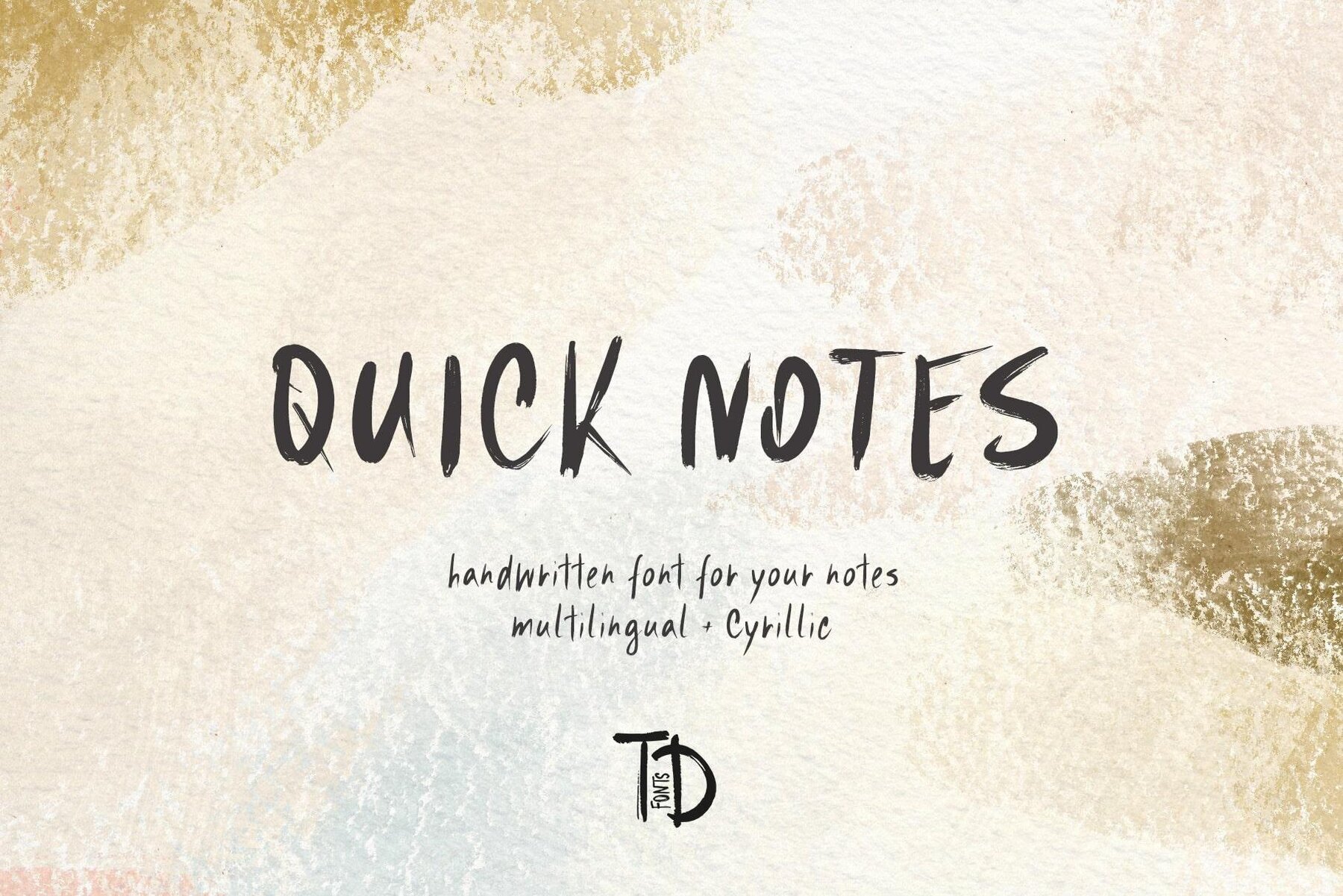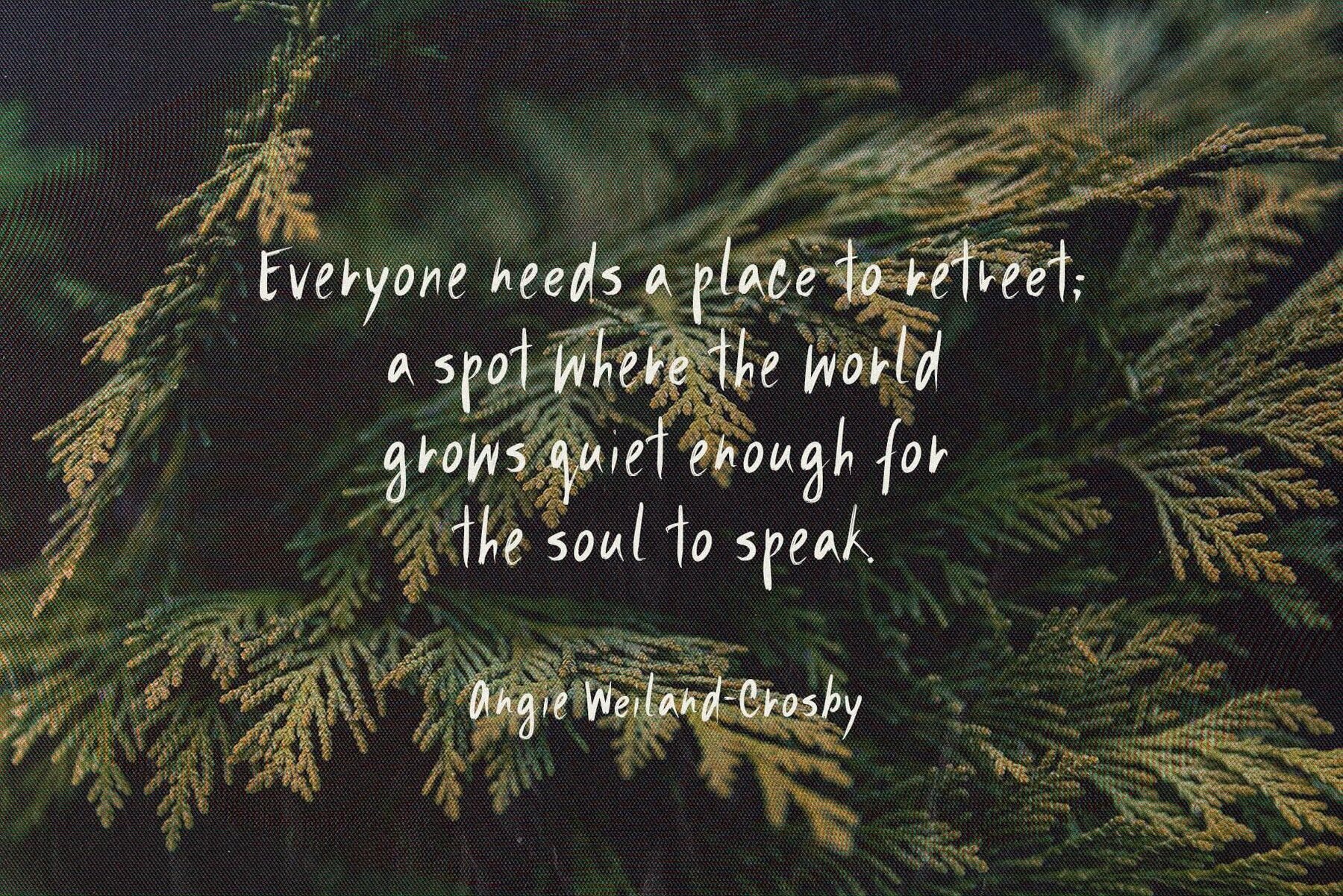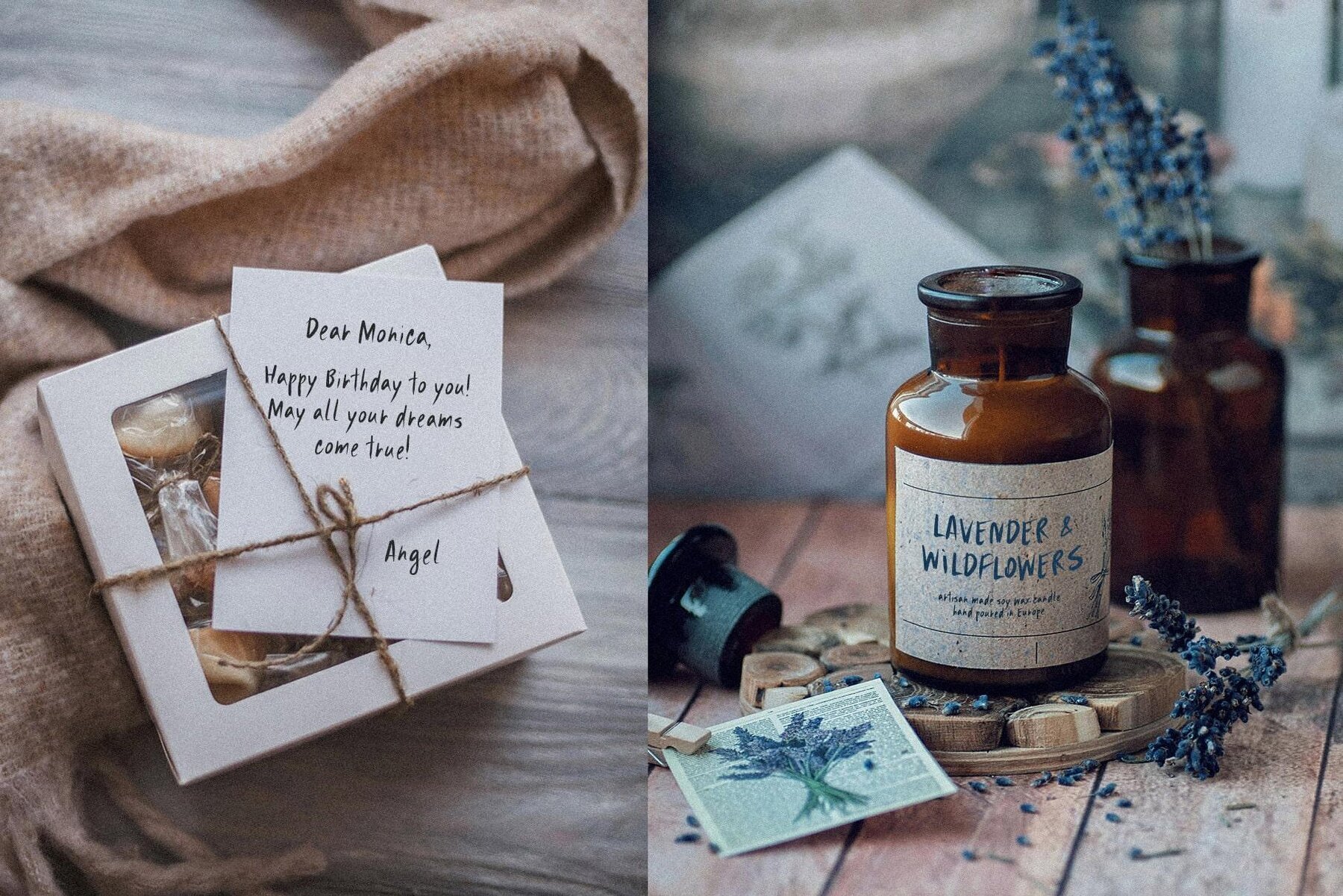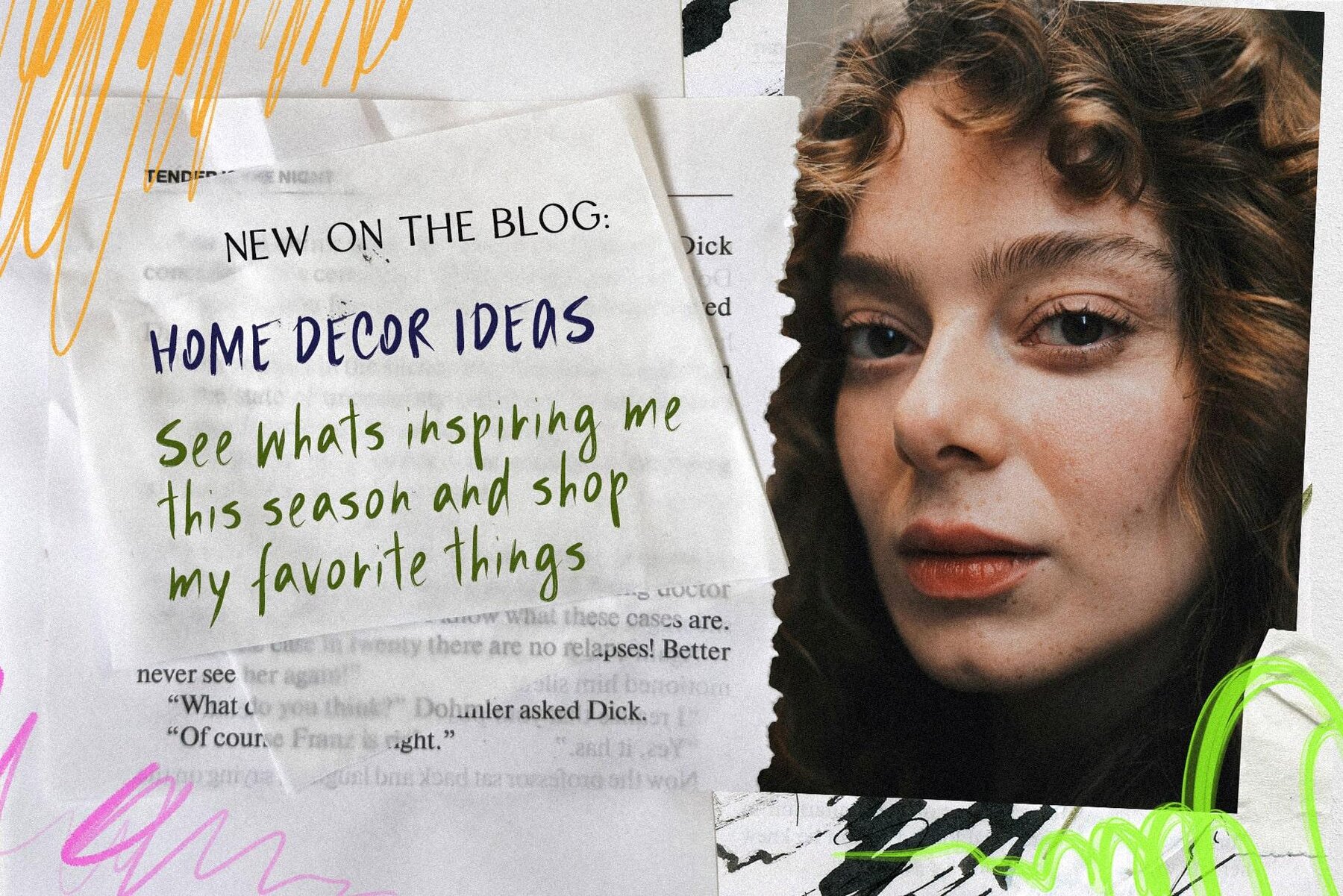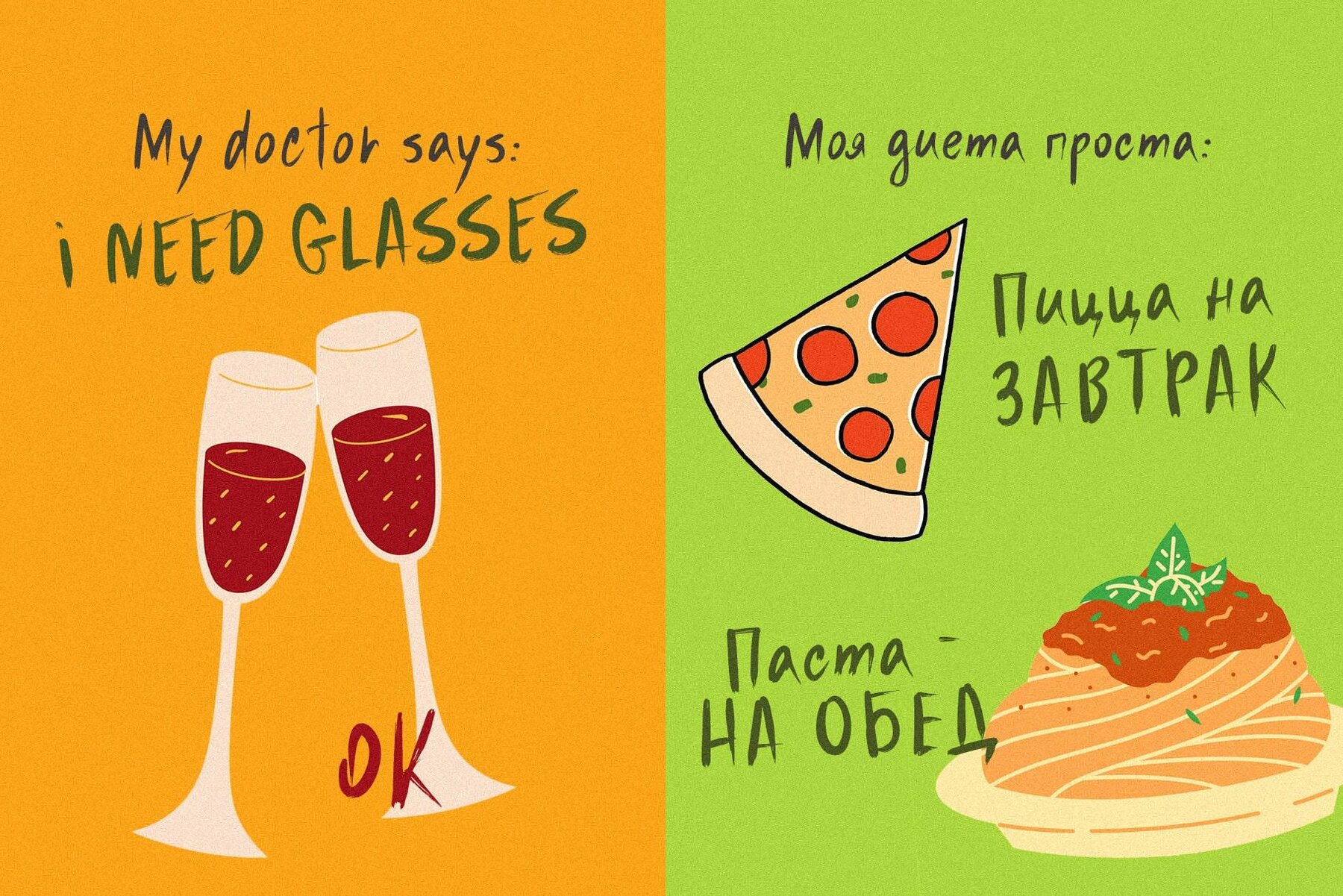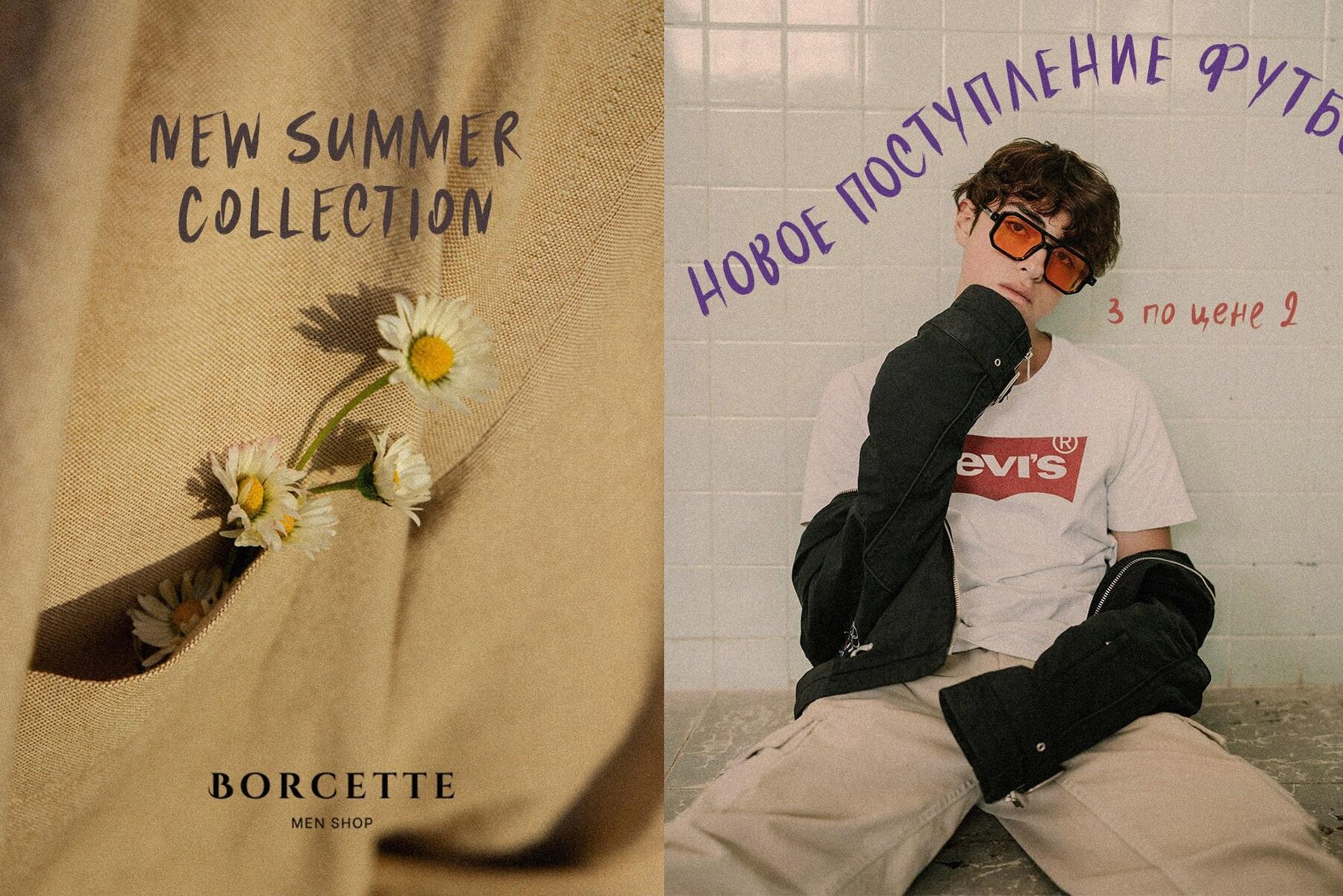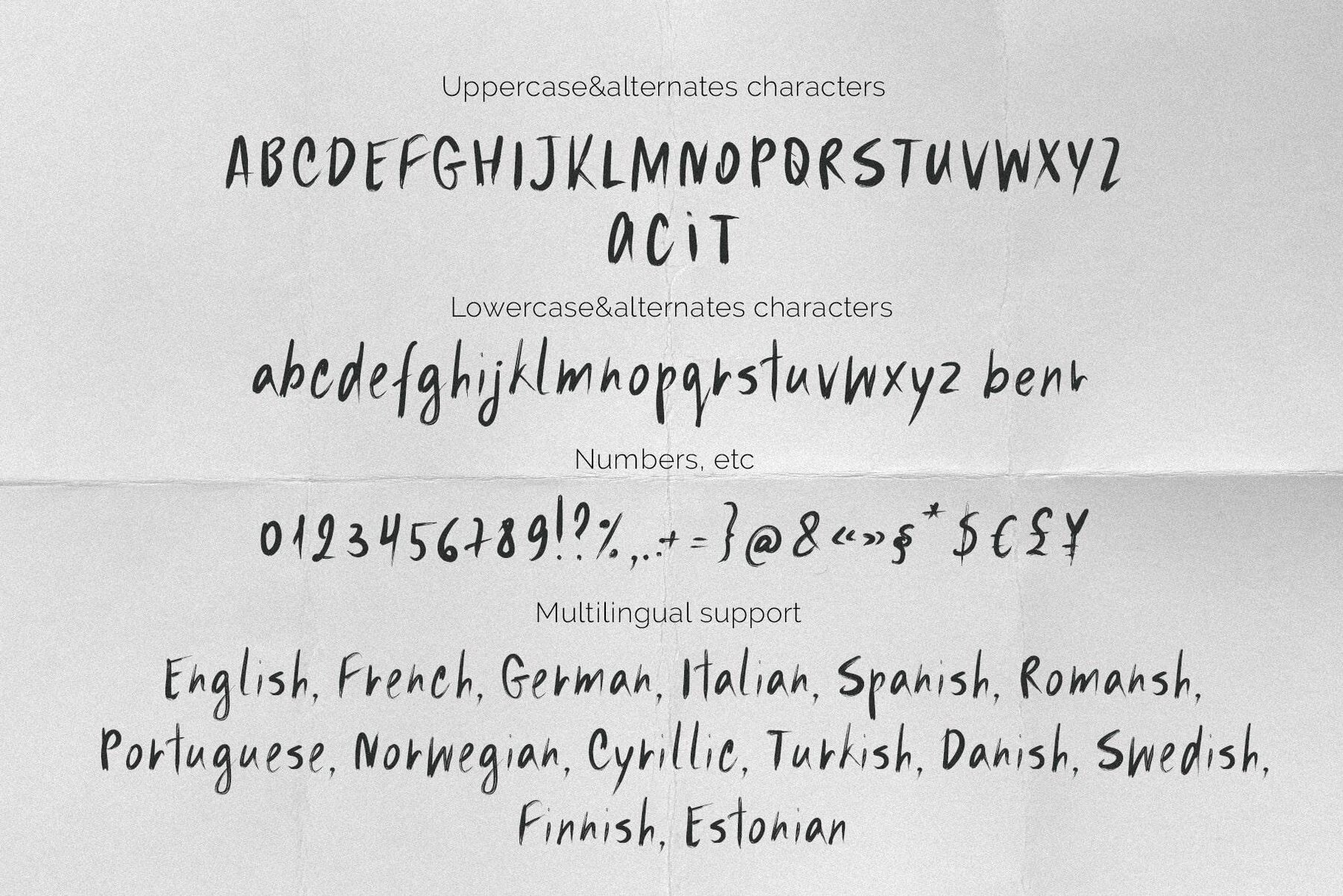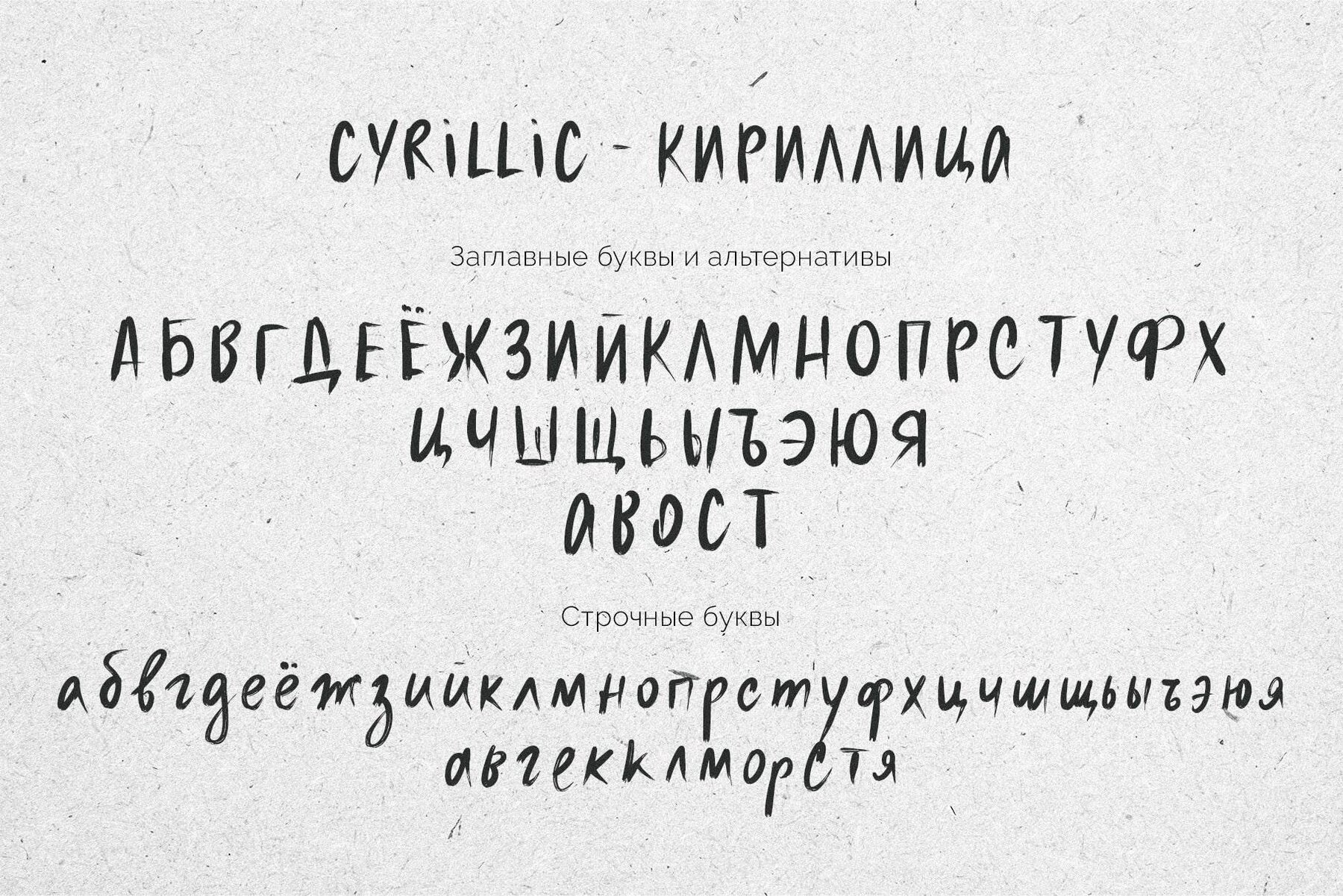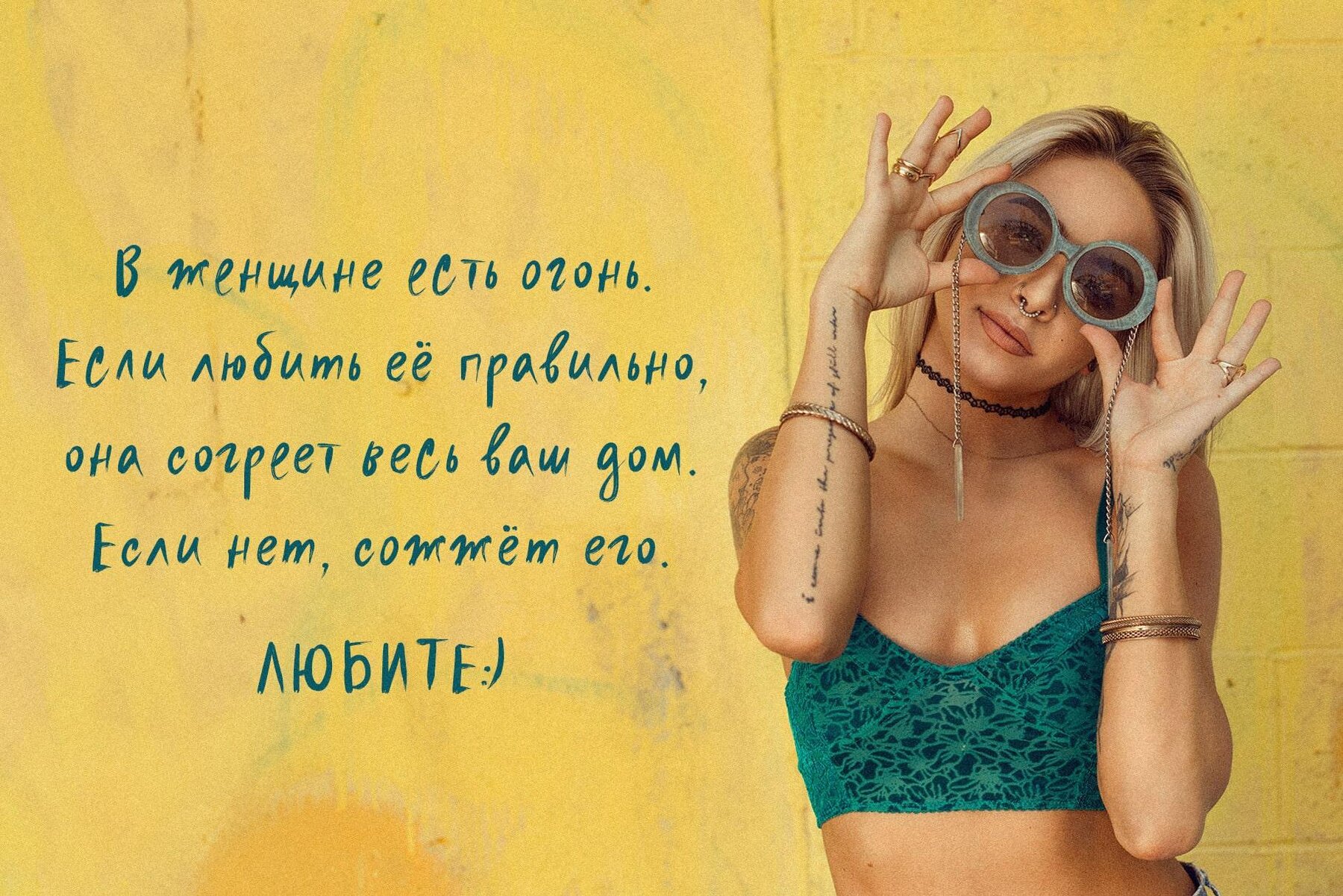
Quick Notes Font
TD Quick Notes
Quick Notes is a distinct handwritten font that captures the fluidity and ease of natural penmanship. For designers seeking a font that imparts individuality with every stroke, Quick Notes offers a sleek solution. This typeface is perfect for those looking to infuse their projects with the charm of swift, casual handwriting. Ideal for a variety of uses, Quick Notes enhances social media graphics by adding a personal flair, makes website headlines and headers pop, and brings warmth to greeting cards and invitations. It's also remarkably suited for crafting branding materials that convey authenticity. Embrace the authenticity and versatility of Quick Notes in your next creative project to create standout results.Quick Notes: A Modern Handwritten Typeface